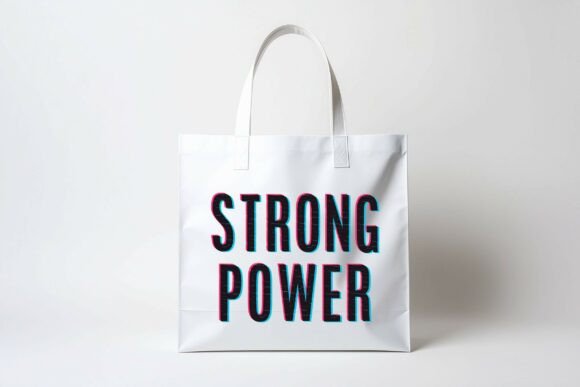
Introduction to Cyberpunk Effect Font
Have you ever stared at a futuristic cityscape, mesmerized by the neon lights reflecting off towering skyscrapers? Or perhaps you’ve spent hours immersed in a sci-fi game, marveling at the sleek, high-tech interfaces? Those moments of wonder often spark a creative idea, begging to be brought to life in a design project. For designers, capturing that essence of futurism and innovation can be a challenge, but one font is here to help: the Cyberpunk Effect Font.
This bold display font is more than just a stylish addition to your design arsenal – it’s a game-changer. With its strong geometric letterforms, subtle glitch textures, and vibrant chromatic shadow effects, the Cyberpunk Effect Font adds a high-tech, futuristic vibe to any creative project. Whether you’re working on a futuristic branding project, a gaming title, or digital artwork, this font is a valuable resource that’s sure to grab attention and leave a lasting impression.
Key Features of Cyberpunk Effect Font
- Unique blend of futuristic and neon aesthetic, perfect for creative projects and designs.
- Features a transparent background, allowing for easy layering and customization in your design.
- Unique characteristics include glitch effects, pixelated textures, and neon color schemes, making it ideal for cyberpunk-themed designs.
- Designed to be highly customizable, allowing you to easily adjust the font’s color, size, and style to fit your creative vision.
- Perfect for designers, artists, and writers looking for a high-quality, free design resource to enhance their work.
Honest Review: Cyberpunk Effect Font
As a designer, I’m always on the lookout for unique and high-quality design resources to elevate my creative projects. Recently, I came across the Cyberpunk Effect Font, which promised to deliver a futuristic vibe with its bold and neon-lit characters. In this review, I’ll share my honest thoughts on this font.
- ✨ Unique and futuristic design aesthetic, perfect for sci-fi and cyberpunk-themed projects.
- ✨ High-quality vector graphics, suitable for both digital and print applications.
- ✨ Includes a transparent background option, allowing for seamless integration with custom backgrounds.
- ⚠️ Limited character set, which may not be suitable for extensive text-based projects.
- ⚠️ Some users may find the font’s boldness overwhelming, especially for smaller text sizes.
Overall, the Cyberpunk Effect Font is a great addition to any designer’s design resource collection. While it may have some limitations, its unique design aesthetic and high-quality graphics make it a valuable resource for creative projects. If you’re looking for a bold and futuristic font to elevate your design, I’d definitely recommend giving this a try.
Tips for Getting the Most Out of Cyberpunk Effect Font
To maximize the impact of the Cyberpunk Effect Font, experiment with different font sizes, colors, and combinations with other design elements. You can also use it in conjunction with other design resources, such as graphics and textures, to create a unique look for your creative project.